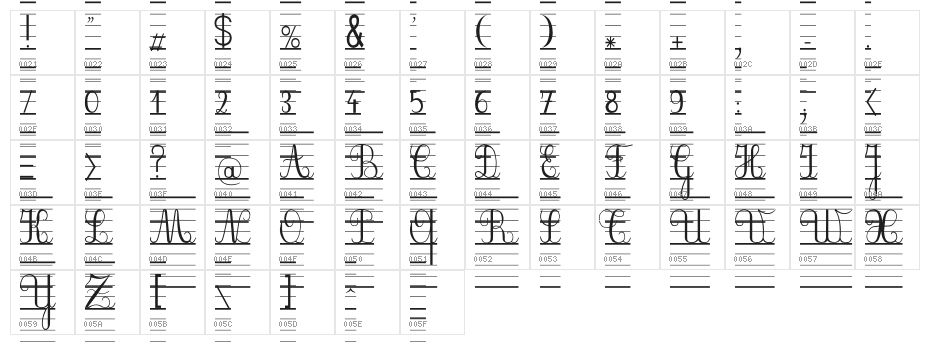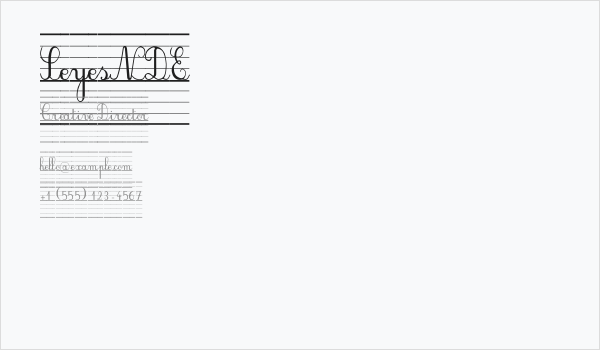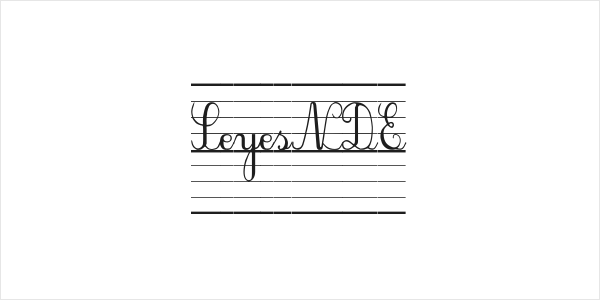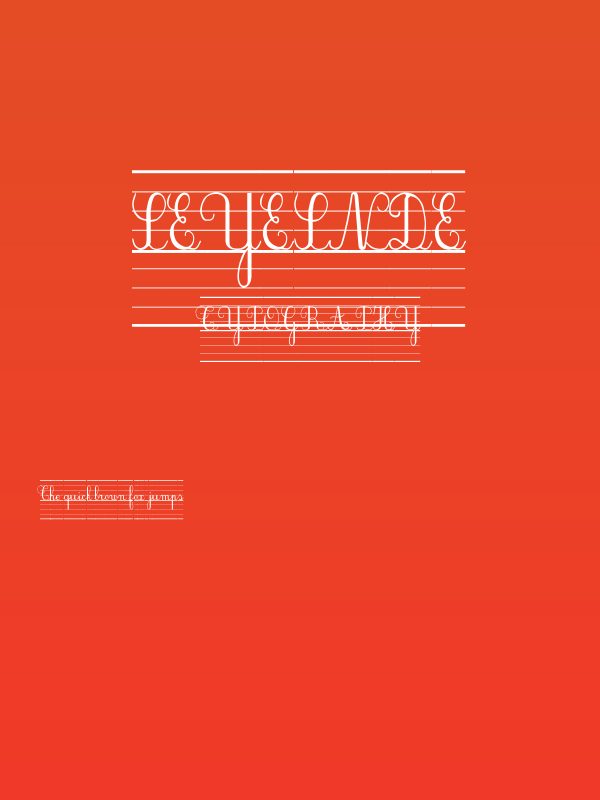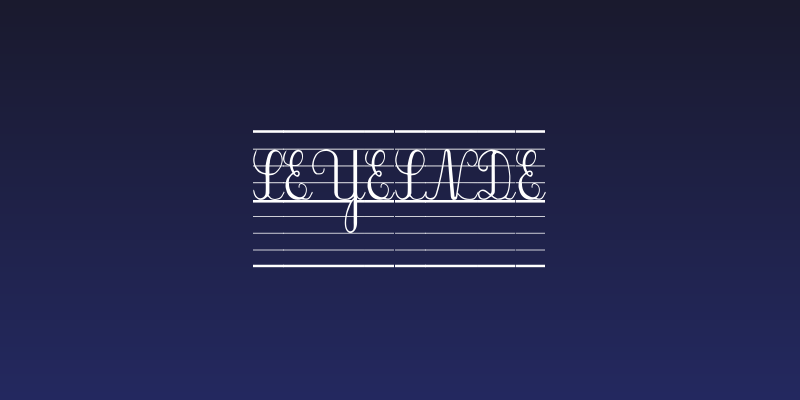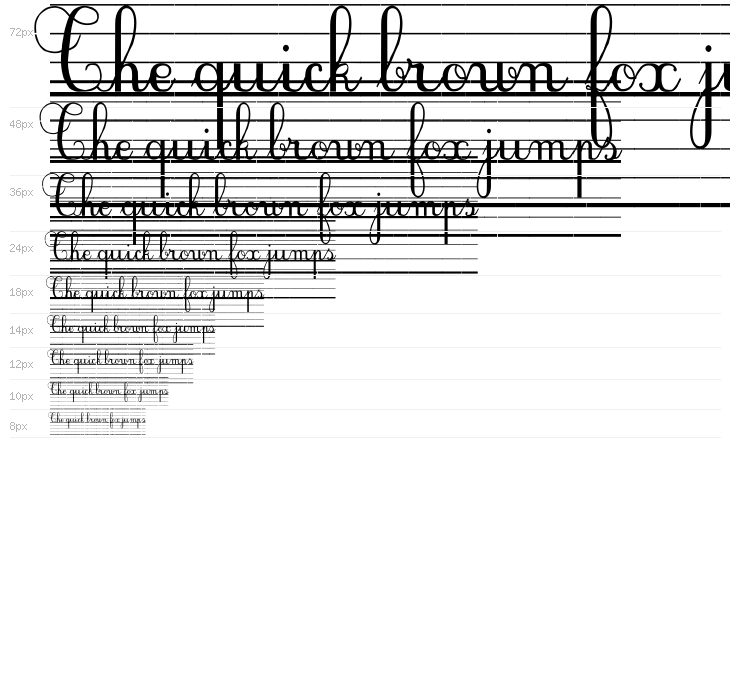
SeyesNDE Font
SeyesNDE Description
This elegant script font features a classic cursive style with fluid, interconnected letters that evoke a sense of sophistication and grace. The uppercase letters are ornate, with elaborate loops and flourishes, while the lowercase letters maintain a smooth, flowing appearance. The numerals and special characters are designed to complement the overall aesthetic, maintaining the same level of intricacy and elegance. This font is perfect for projects that require a touch of refinement and class, such as wedding invitations, formal event programs, or high-end branding materials. The consistent stroke width and balanced proportions make it both visually appealing and easy to read, despite its decorative nature.
| Use Case | Headlines, Invitations, Branding |
| Proposed Projects | Ideal for wedding invitations, formal event programs, and high-end branding materials. |